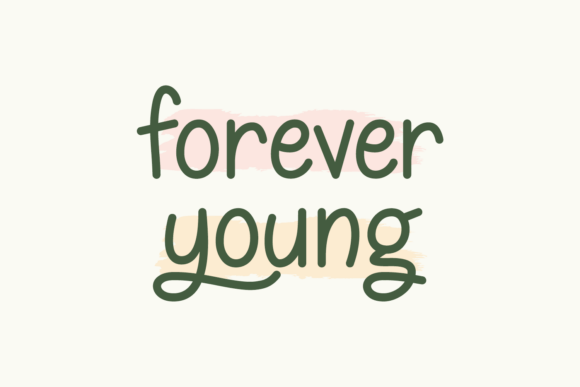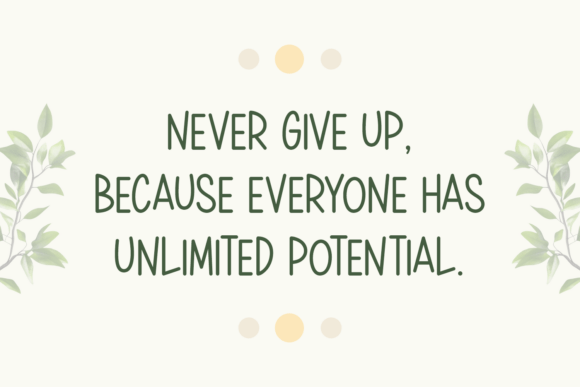
Introduction to Legit Mama Font
As a designer, you’ve probably experienced that moment when a project just isn’t feeling right. You’ve tried every combination of colors, shapes, and textures, but something’s missing. That’s where a high-quality font like the Legit Mama Font comes in – it’s the perfect addition to elevate your design and bring it to life.
Whether you’re creating a logo, branding, invitation, or social media post, the Legit Mama Font is the perfect design resource to add that special handwritten touch. Its elegant and simple design makes it perfect for a variety of creative projects, from weddings to business promotions. With its transparent background and free download, you can easily integrate it into your design without any hassle.
Key Features of Legit Mama Font
- Legit Mama Font comes in 3 different font styles, including a bold and regular version, to add versatility to your design project.
Honest Review: Legit Mama Font
As a designer, I’m always on the lookout for high-quality design resources that can elevate my creative projects. The Legit Mama Font is one such resource that caught my attention.
Here’s what I like about the Legit Mama Font: ✨ It has a unique, playful style that’s perfect for feminine or family-themed projects. ✨ The font is highly customizable, allowing for easy adjustments to color, size, and opacity. ✨ The free download option is a major plus, making it accessible to designers of all levels.
Overall, I’m impressed with the Legit Mama Font’s quality and versatility. While it may have its limitations, it’s a great addition to any designer’s toolkit, particularly for projects that require a touch of femininity or whimsy.
- Unique, playful style
Tips for Getting the Most Out of Legit Mama Font